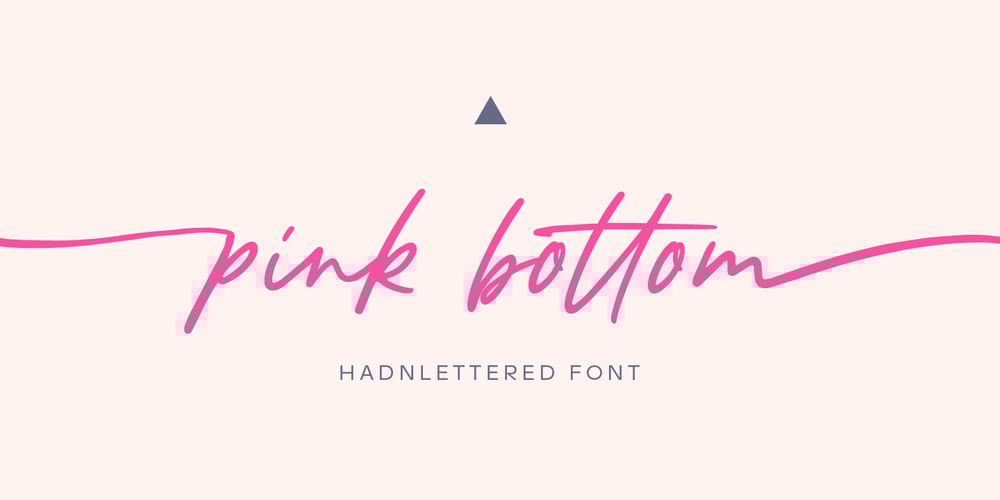
Pink Bottom
Pink Bottom font
Pink Bottom Font Family was designed by Dmitrii Chirkov and published by Supfonts. Pink Bottom contains 2 styles and family package options. This modern calligraphy script has been attentively written, with gentle curves to produce a font thats completely distinctive and original. It contains a full set of lower & uppercase letters, a large range of punctuation, numerals, and multilingual support. Perfect for adding a elegant and unique touch to your lettering projects and brandingAlso with their help, you can create a Wedding lettering or beautiful frame for your home. Or just use for your small business, book covers, stationery, marketing, magazines and more.What’s included Loneliness Regular Loneliness Swashes Multilingual support Cricut support Check out my blog: https://www.instagram.com/superdizigner https://pinterest.com/dmitriychirkov7